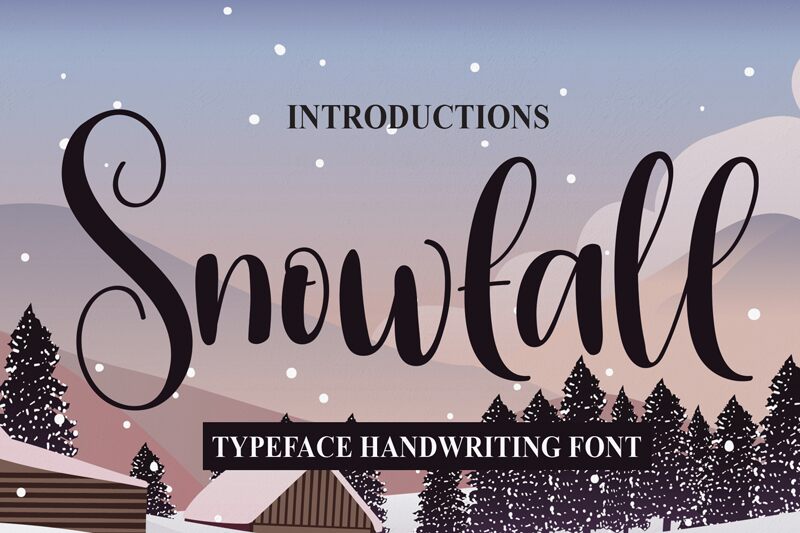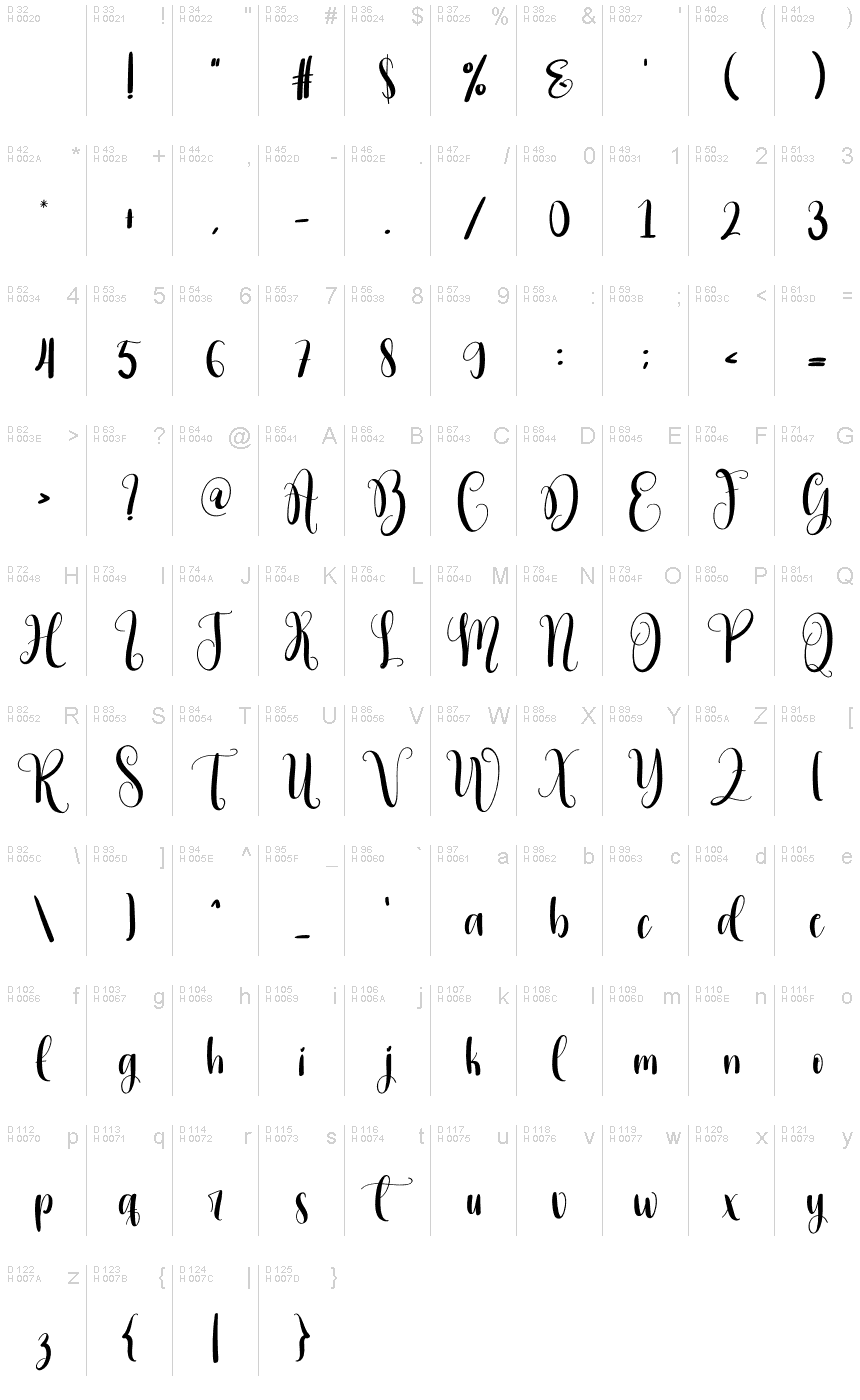
Snowfall
Snowfall is a stunning semi-light calligraphy font designed by scratchones. Its elegant curves and flowing strokes make it perfect for wedding invitations, greeting cards, and other formal occasions. The semi-condensed width of the font makes it ideal for headers and titles that need to fit within a limited space. Whether you're designing a sophisticated logo or creating beautiful typography for your website, Snowfall adds a touch of class to any project. Showcase your creativity with this exquisite typeface and impress your audience with its exceptional beauty. This font is suitable for projects ranging from high-end fashion brands to modern luxury hotels!
the latest style letters are perfect for wall displays, wedding invitations, social media post logos, advertisements, product packaging, product designs, labels, photography, watermarks, invitations, stationery, and any project that requires taste handwriting.